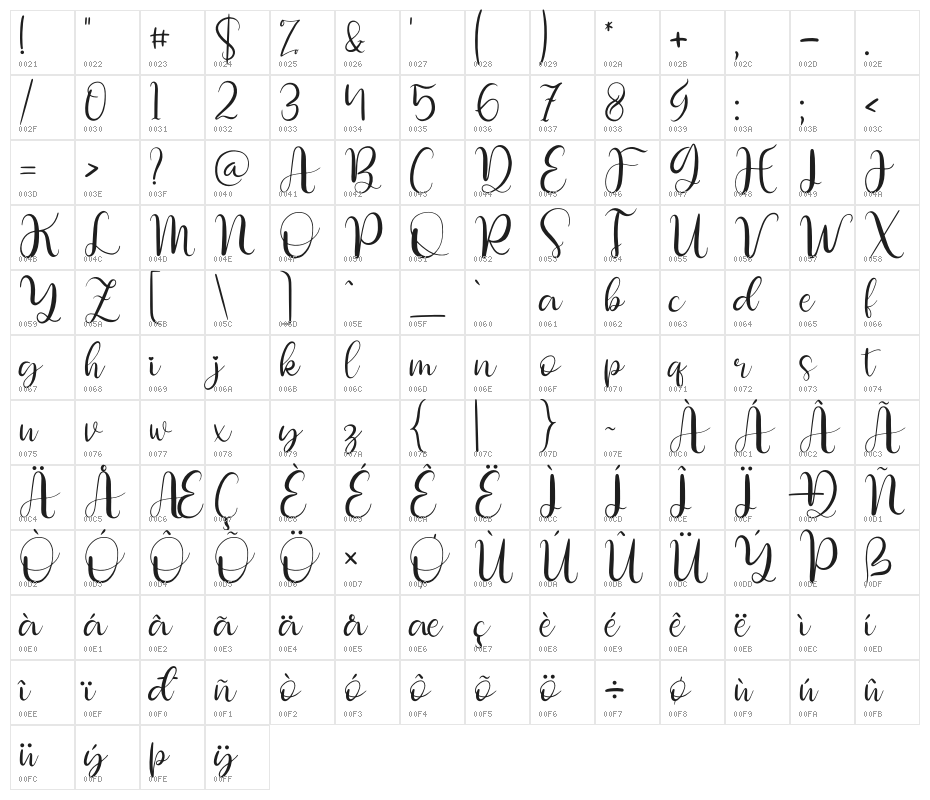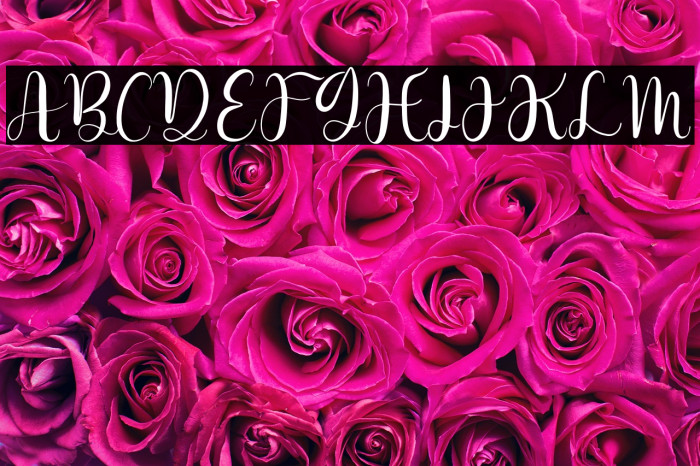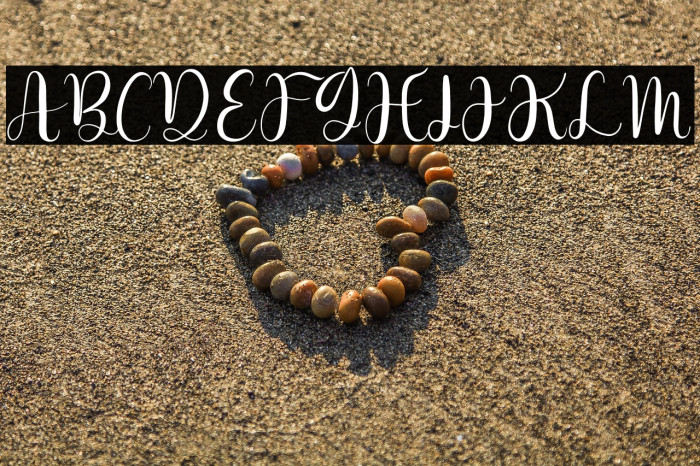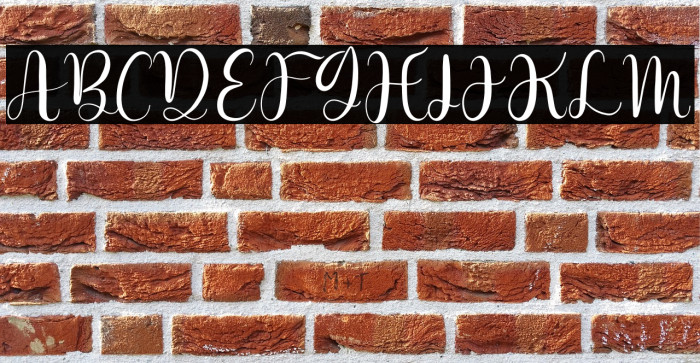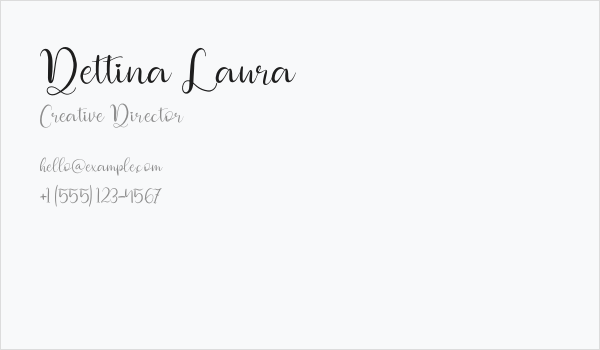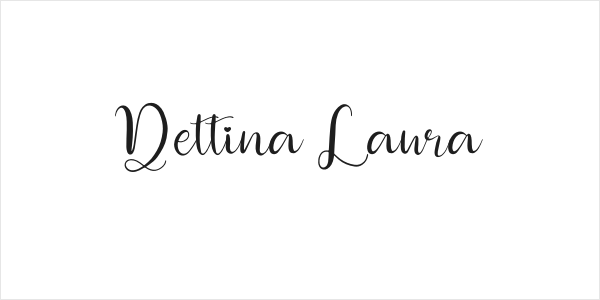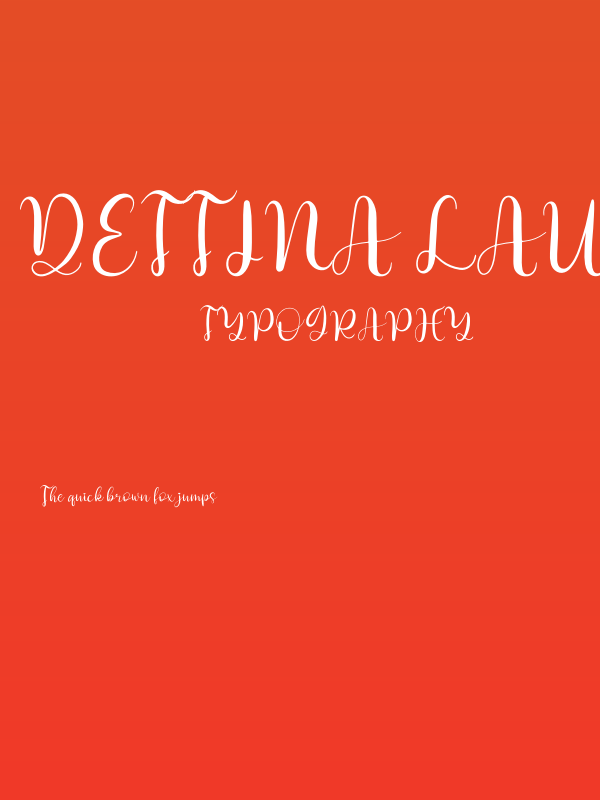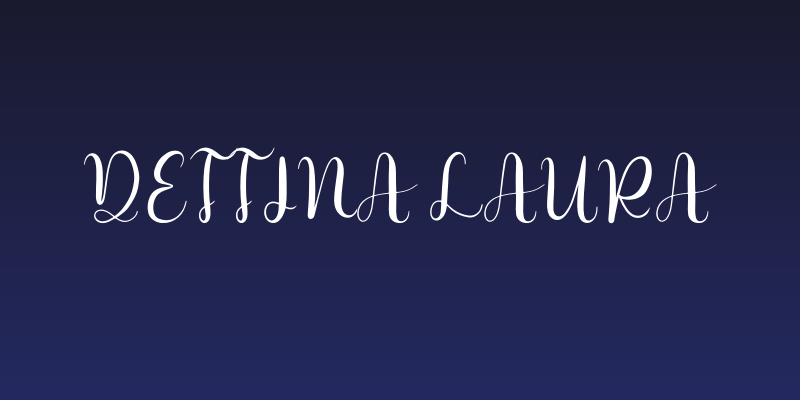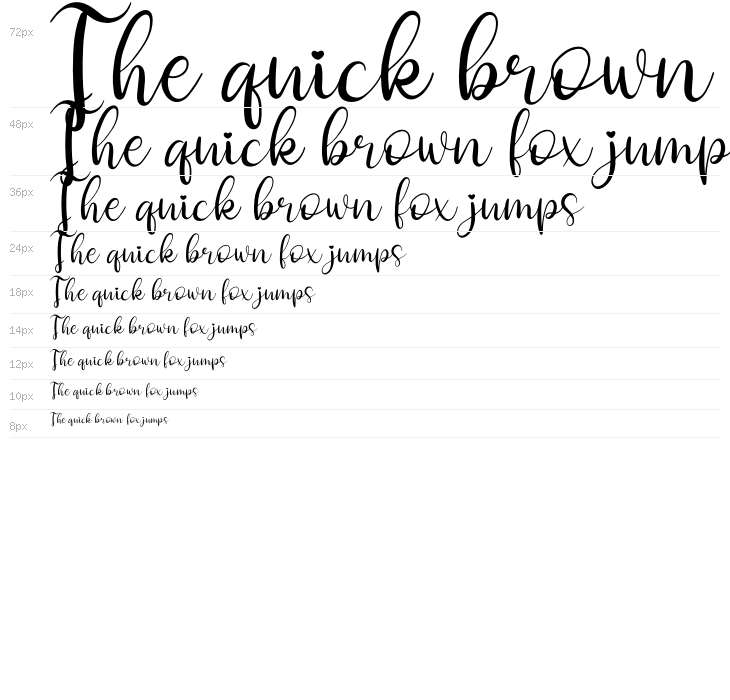
Dettina Laura Font
Dettina Laura Description
This elegant script font features a flowing, cursive style with smooth, continuous strokes that create a sense of movement and grace. The uppercase letters are characterized by their intricate loops and swirls, adding a touch of sophistication and flair. The lowercase letters maintain a consistent fluidity, with some characters featuring unique flourishes that enhance their visual appeal. The numerals are crafted with a similar attention to detail, ensuring they complement the overall aesthetic. Special characters are thoughtfully designed to integrate seamlessly with the rest of the font, making it versatile for various applications. The font's overall appearance is both stylish and legible, making it suitable for a range of creative projects.
| Proposed Projects | Ideal for wedding invitations, greeting cards, branding, and elegant packaging designs. |